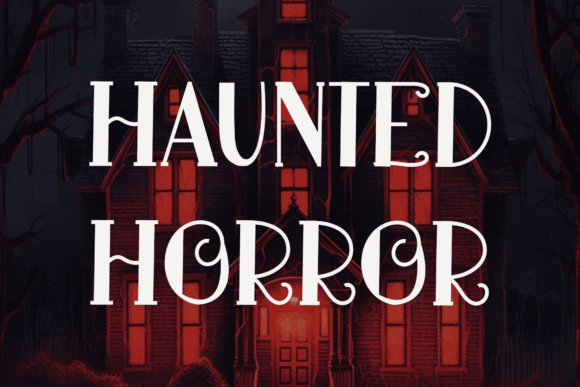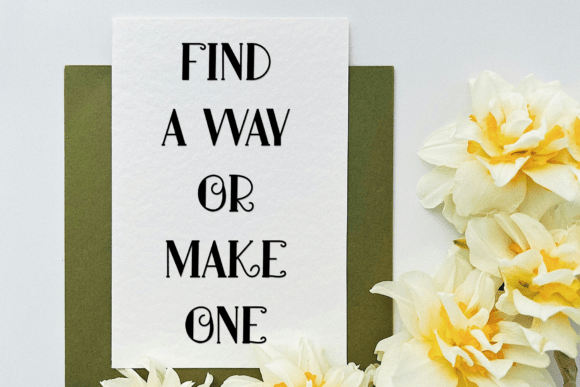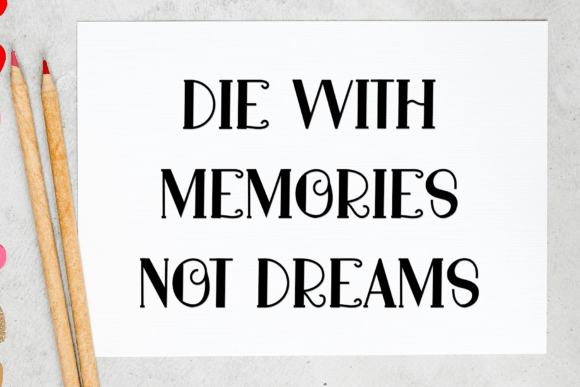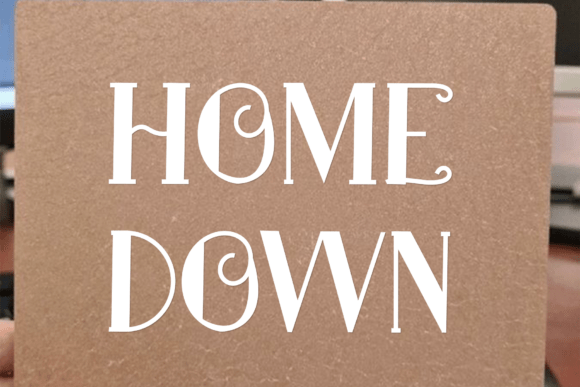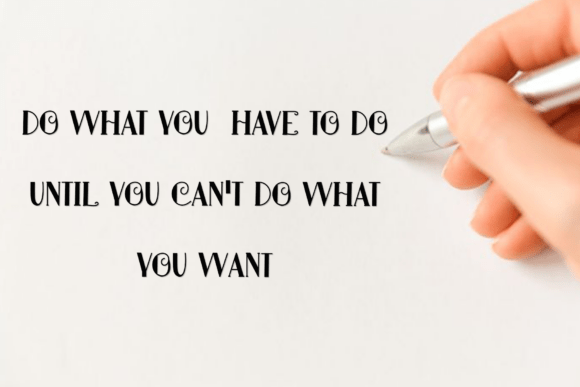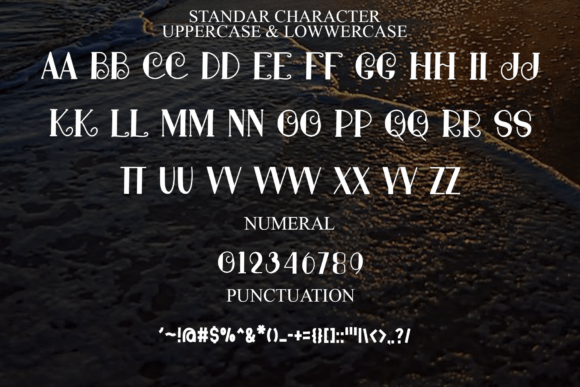
Introduction to Modern Interior Font
Do you remember the rush of excitement as a child, unwrapping gifts on a snowy Christmas morning? The twinkling lights, the festive decorations, and the joyful atmosphere all blended together to create an unforgettable experience. As a designer, you can recreate this magic in your work with the Modern Interior Font, a delightful typeface that embodies the spirit of the holiday season.
With its whimsical flair and decorative elements, the Modern Interior Font is a valuable design resource for any creative project. Whether you’re working on a holiday-themed campaign or simply want to add a touch of festivity to your designs, this font is sure to bring a cheerful ambiance to your work. And the best part? It’s available for free download with a transparent background, making it a high-quality addition to your design arsenal.
Key Features of Modern Interior Font
- Unique blend of modern and minimalist design, making it an ideal design resource for creative projects.
- Includes a comprehensive character set, covering a wide range of languages and symbols, making it a versatile design resource.
- High-quality font, optimized for use in digital and print media, including web design, graphic design, and interior design projects.
- Designed to be highly legible, even at small font sizes, making it perfect for use in headings, titles, and body text.
Honest Review: Modern Interior Font
As a designer, I’m always on the lookout for high-quality design resources that can elevate my creative projects. Recently, I stumbled upon the Modern Interior Font, and I’m excited to share my honest review.
What works well: ✨ The font is incredibly versatile, with a sleek and modern aesthetic that’s perfect for interior design projects. The transparent background allows for seamless integration with any design element, making it a great addition to any design resource library. The free download is a major plus, making it accessible to designers of all levels.
What could be improved: ⚠️ The font’s limited character set is a major drawback. While it’s perfect for interior design projects, it may not be suitable for more extensive design work that requires a wider range of characters.
Overall, I’m impressed with the Modern Interior Font. Its high-quality design and transparent background make it a valuable addition to any design resource library. While it may have its limitations, I highly recommend it for designers working on interior design projects or those looking for a modern, stylish font.
- High-quality, modern design
- Limited character set (may not be suitable for extensive design work)
The Modern Interior Font is ideal for interior design projects, including home decor, furniture design, and architecture. It’s also suitable for creative projects such as graphic design, branding, and digital art.